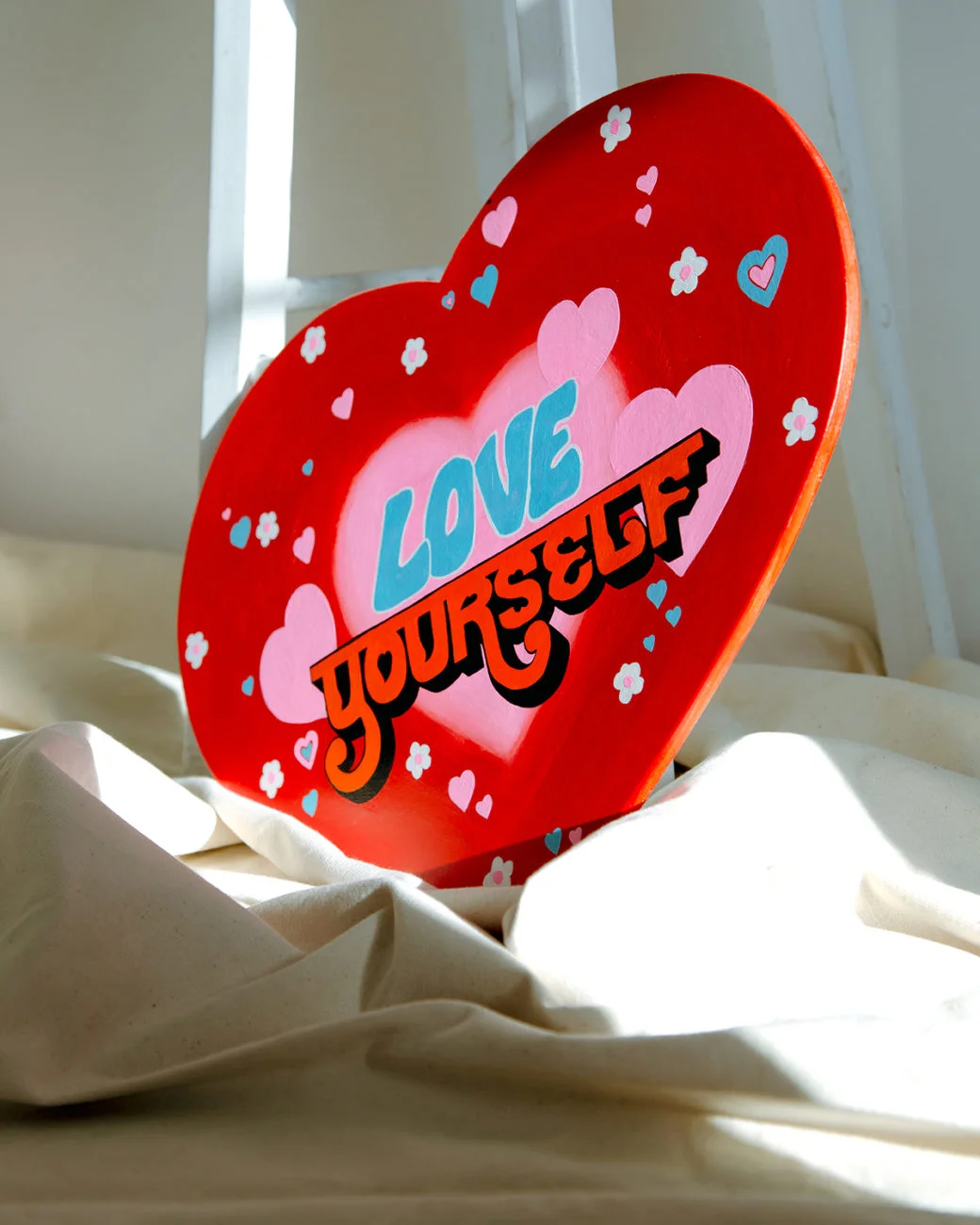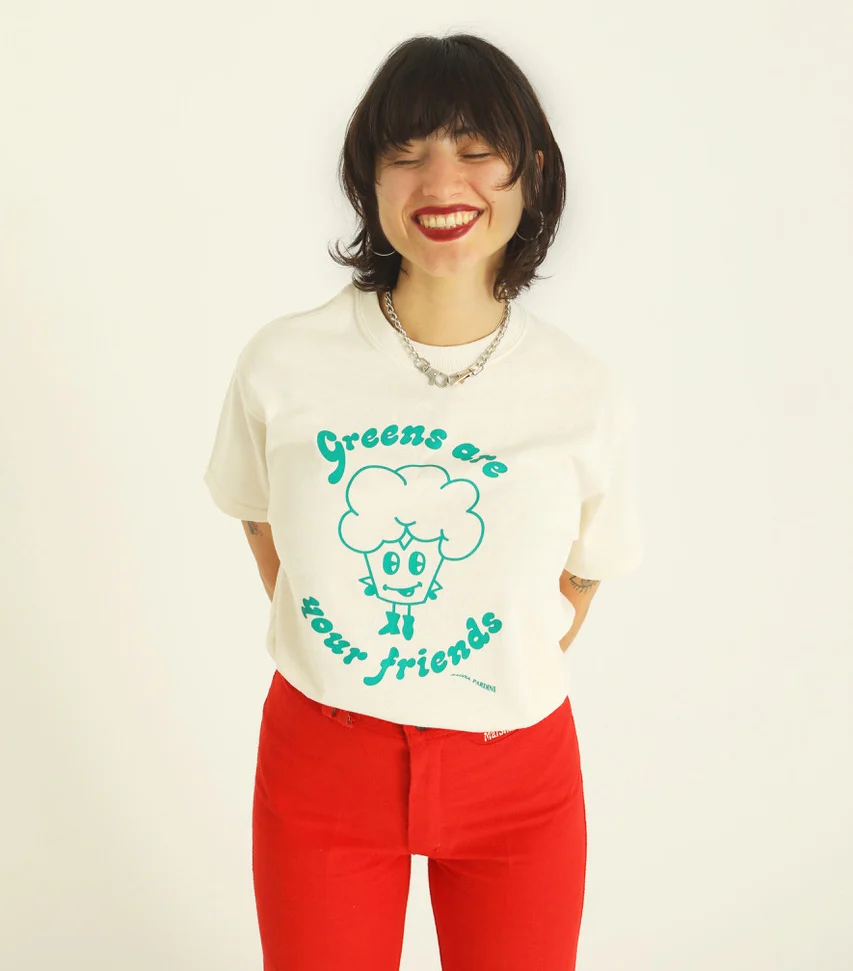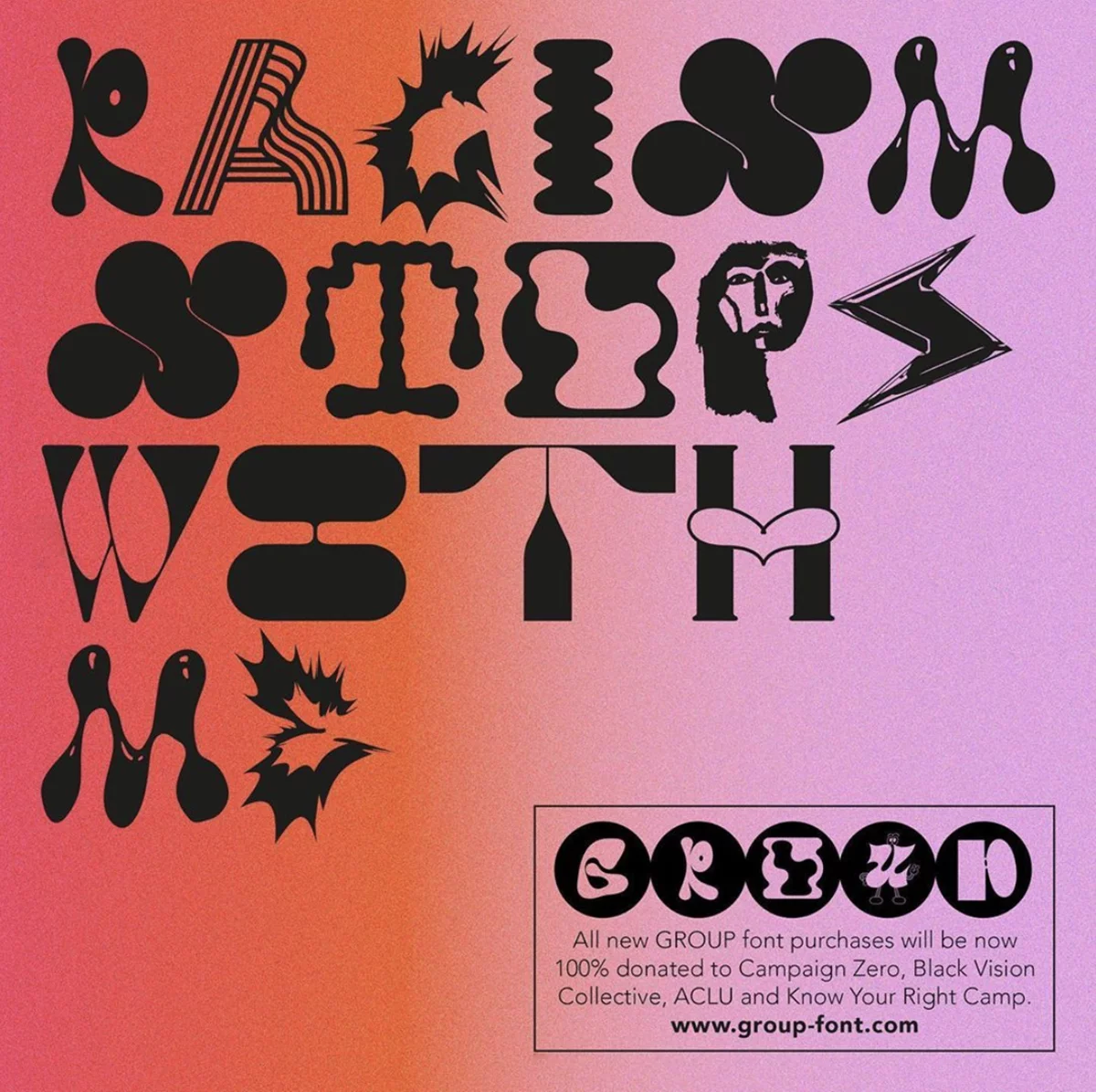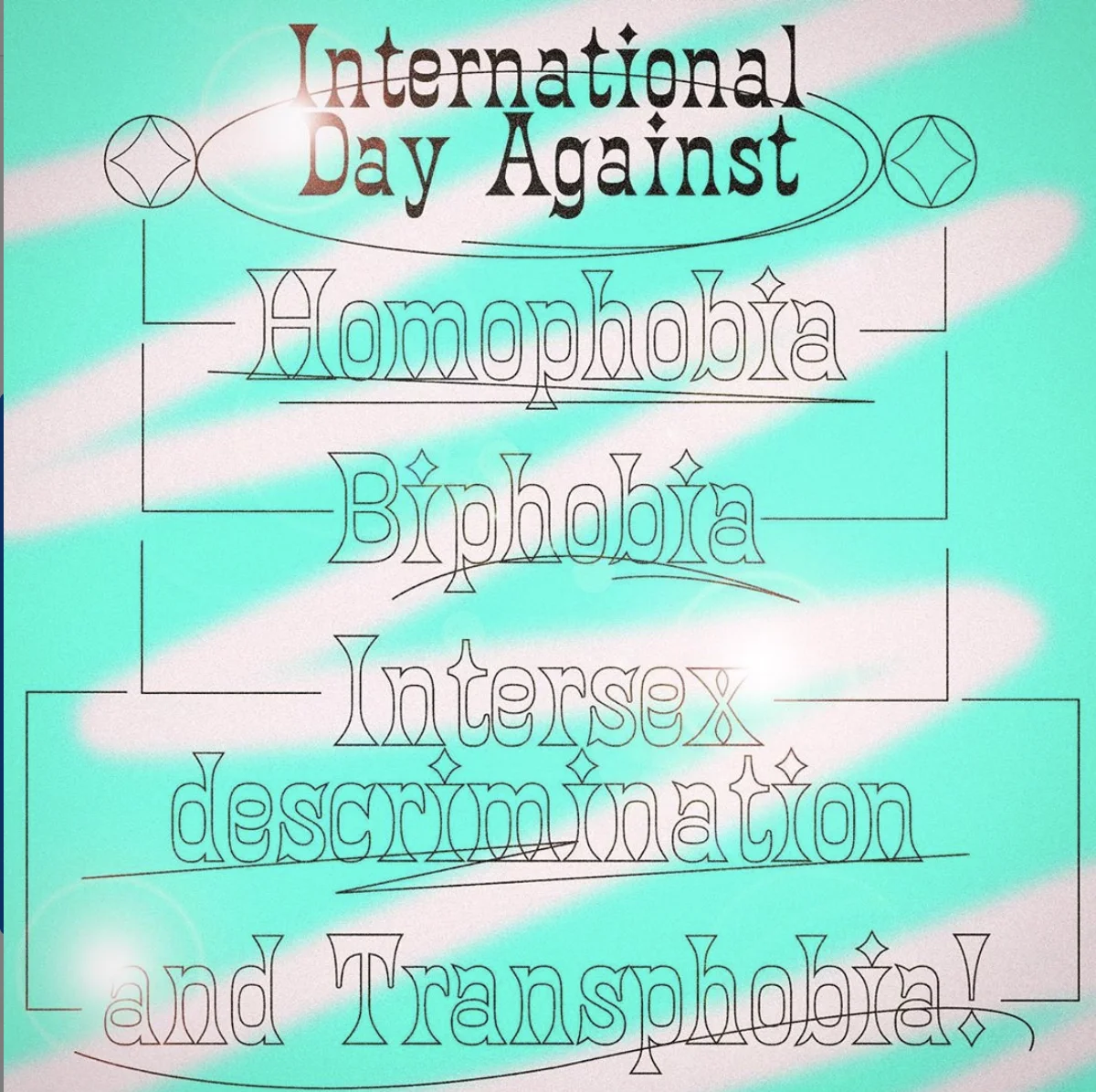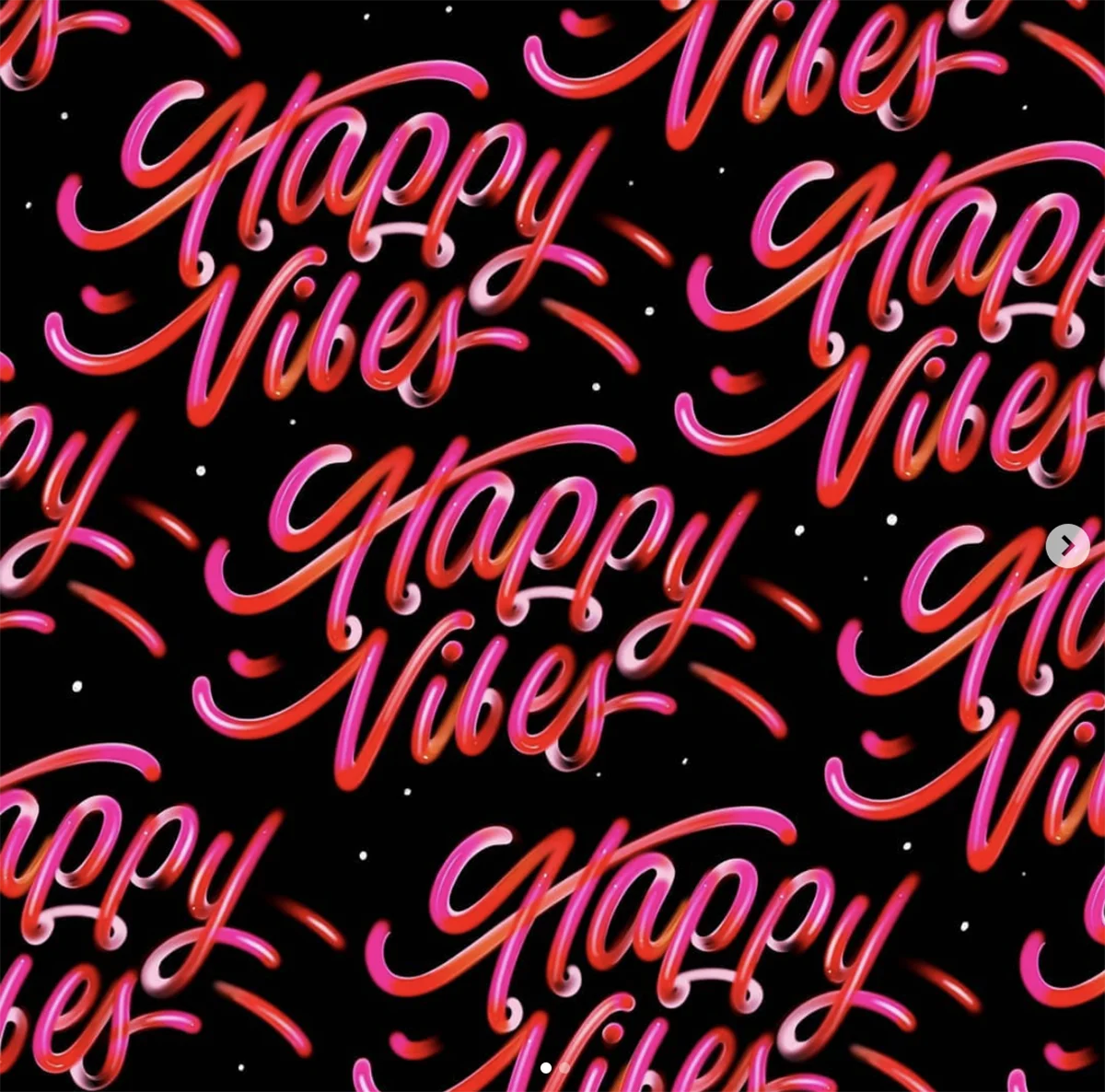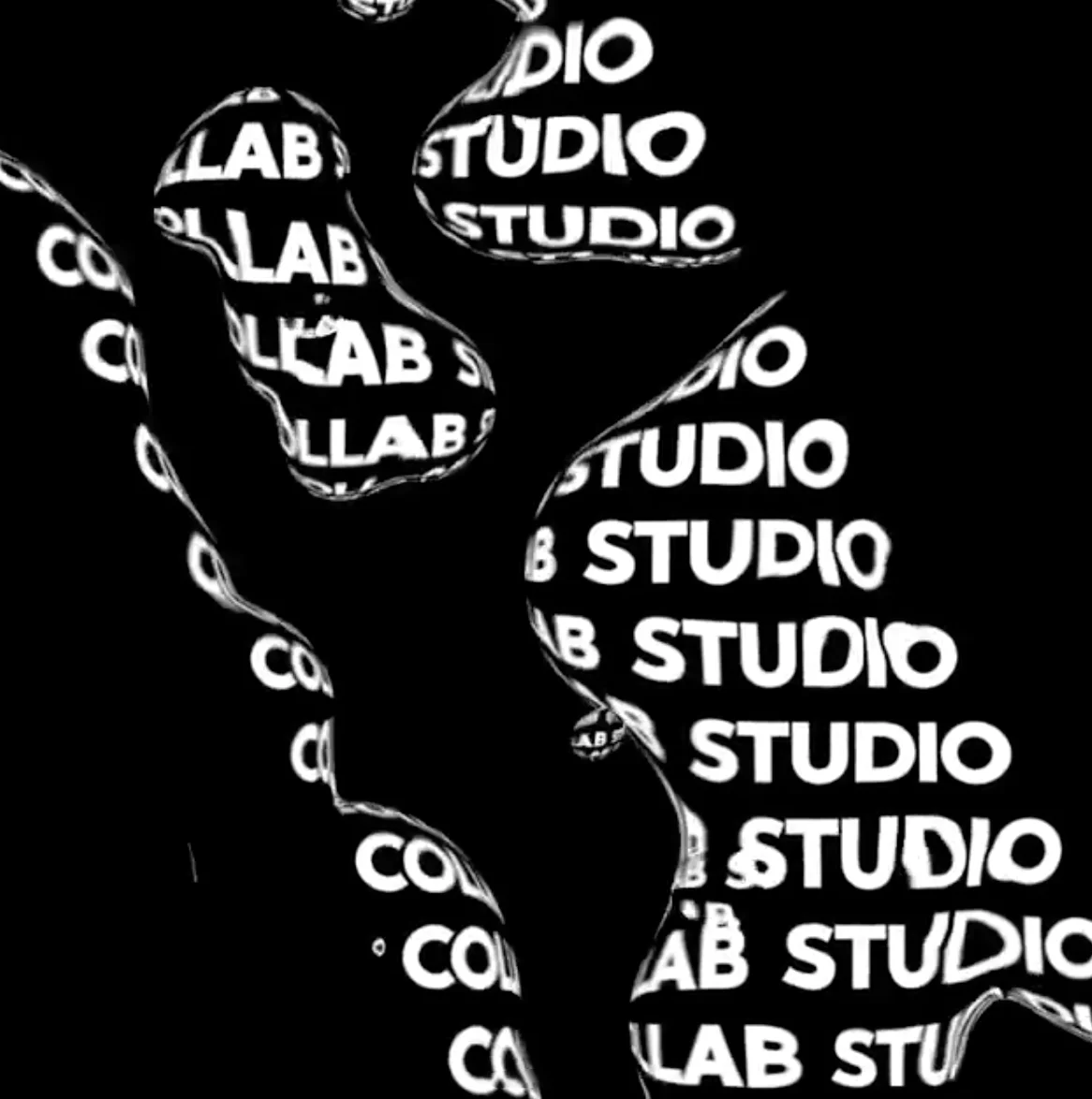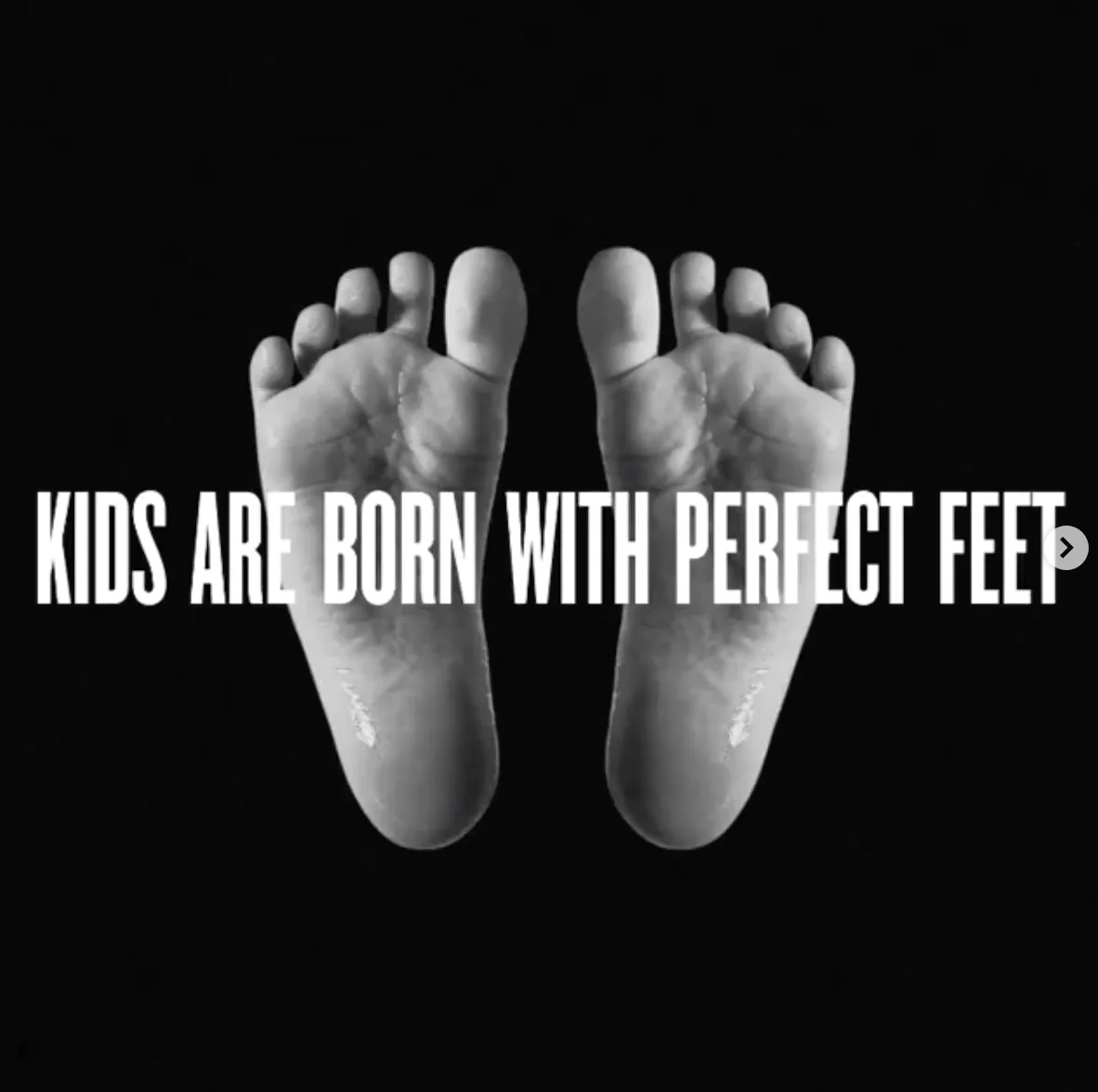
Head over to FEMME TYPE, the arm of our business that celebrates the type work of industry womxn, and check out their new creative collaboration with Adobe Live! Our FEMME TYPE team have curated a selection of four artists from their network and briefed them to create, a typographic poster in response to the unfortunate but necessary cancellation of the UK’s Summer Festival season. These live-show pieces will be hosted on Adobe Live each Wednesday in July starting this coming Wednesday, the 1st of July for four weeks. This project is a wonderful way to promote and showcase the talented skillset that the chosen artists possess, giving you guys an exclusive insight into the way they work and how to navigate through Adobe’s Creative Cloud Apps.
Raissa Pardini (@raissa_pardini)
The first artist on our panel is Glasgow-based Multidisciplinary Designer Raissa Pardini. Raissa’s work is heavily involved in activism and usually takes the form of bold, expressive typography compositions. Taking a contemporary approach to type, you’ll be walked through how Raissa creates her poster of choice in Indesign, showing her process and quick tips. Tune in on the 1st of July!
Emily Theodore (@emmtheo)
Next up, hosting her live stream on Wednesday the 8th of July is London-based designer Emily Theodore. Emily is renowned for her expressive vector type and custom lettering skills, skills that she’ll be showcasing in Adobe Illustrator so make sure you’re tuning in for that!
Jasmin Sehra (@jasminsehra)
Our third artist to introduce is Jasmin Sehra. Jasmin is a talented designer who has built up an impressive client list of Adidas, Converse, Levis, Nike and many other established brands. Her work takes the form of playful and expressive lettering designs which she hand draws herself, something you’ll get a sneak peek into when she produces her design in Adobe Fresco on Wednesday the 15th of July.
Georgie Yana (@georgieyanadesign)
Last but not least, the final artist to showcase their talents is Senior Motion Designer Georgie Yana. Born and bred in London, Georgie has a fantastic portfolio filled with engaging motion graphics with type holding a solid majority at the core. In her live stream, learn first-hand how to create the hypnotising type effects she uses within her work created in Adobe After Effects. This one is certainly not to be missed! Tune in on the 22nd of July for the final stream.